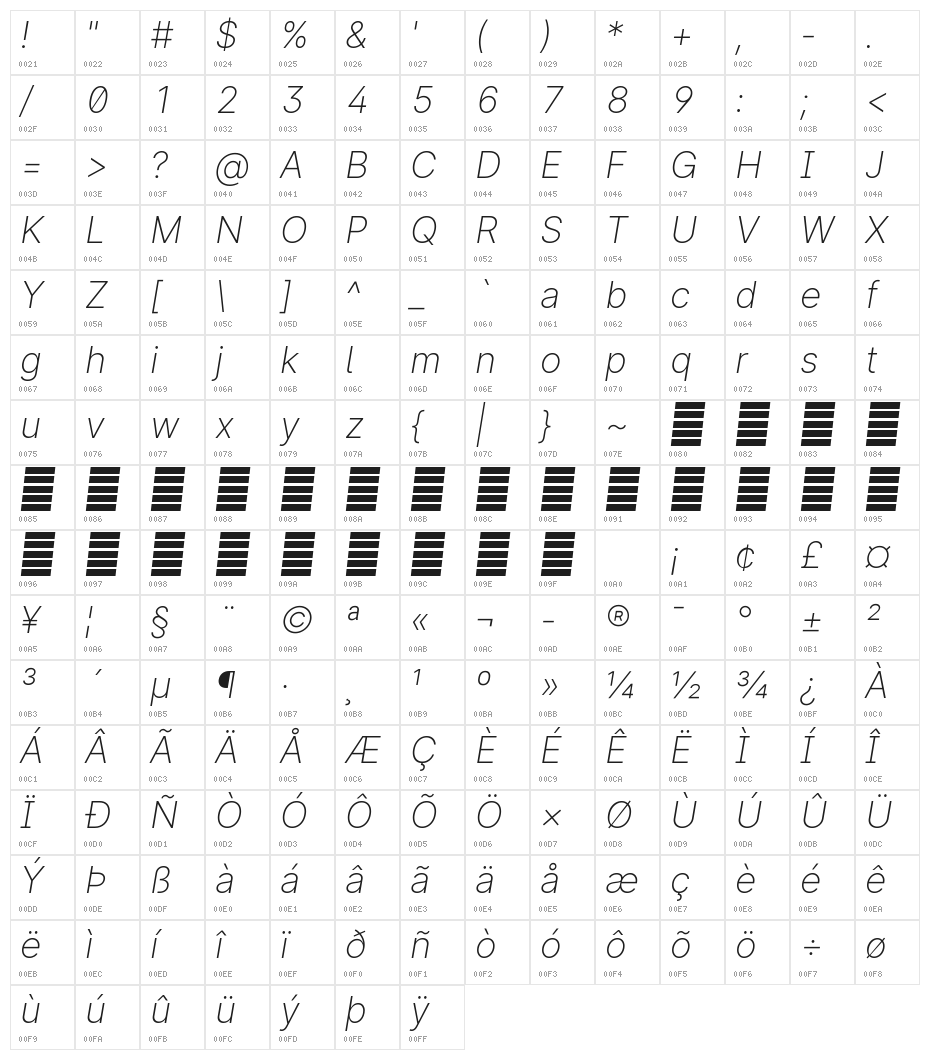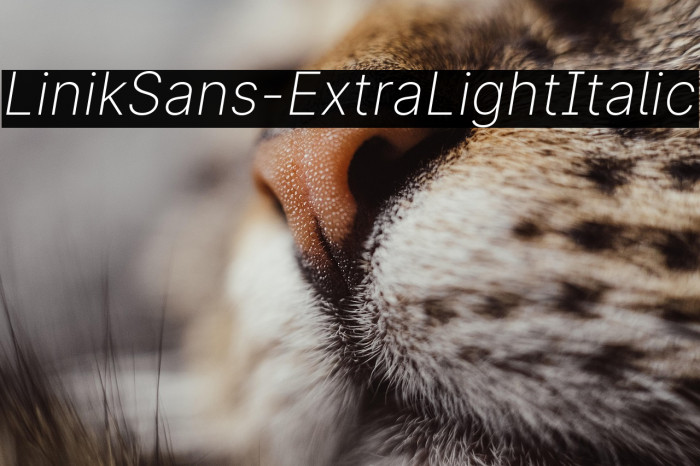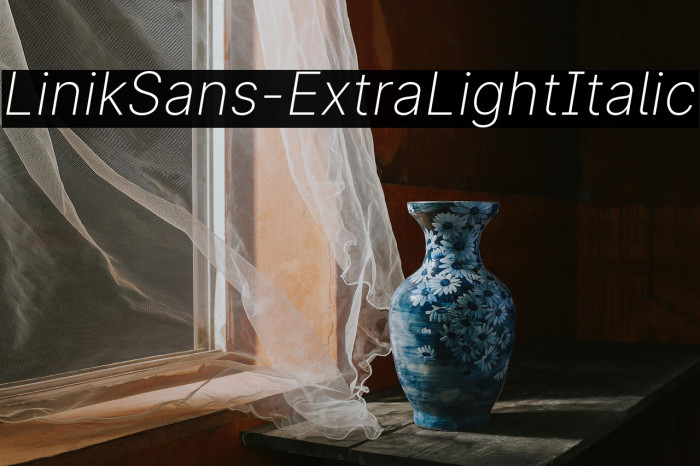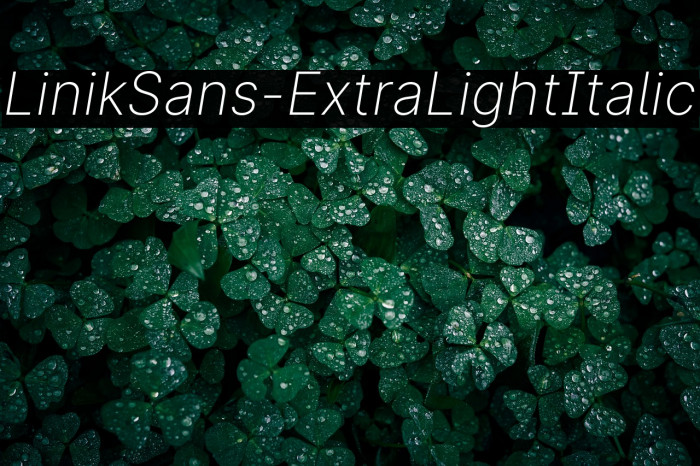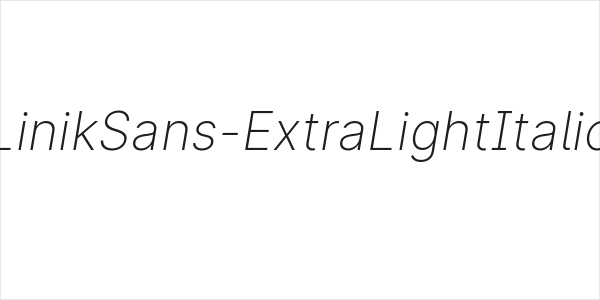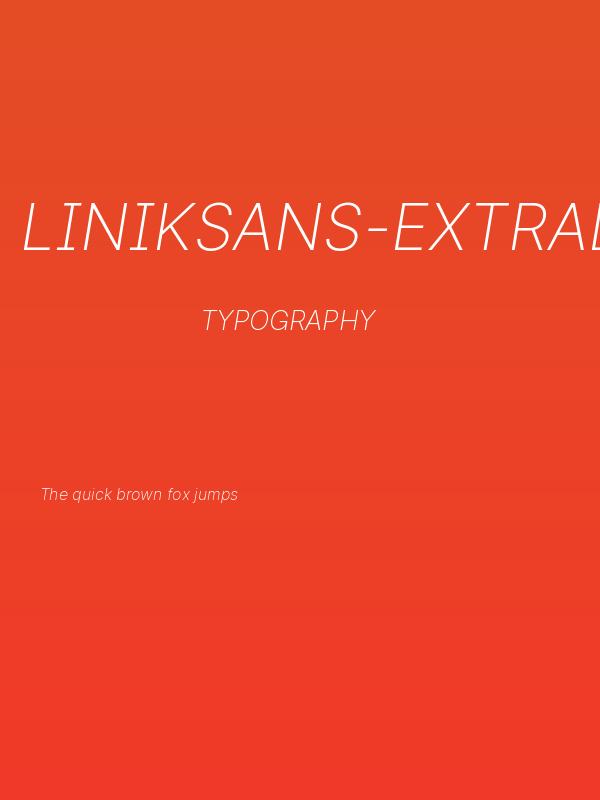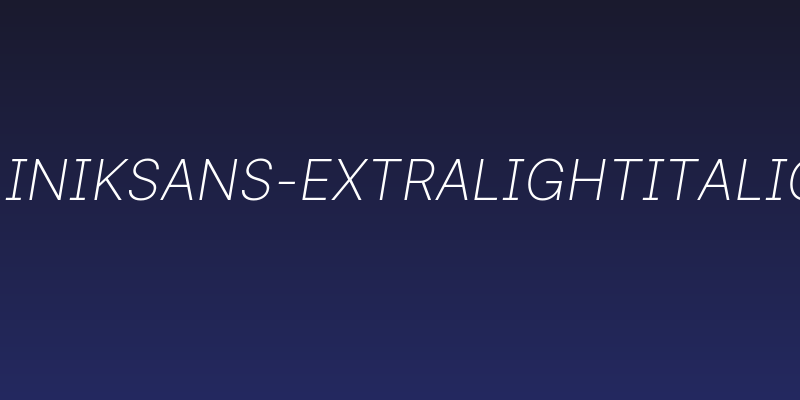
LinikSans-ExtraLightItalic Font
LinikSans-ExtraLightItalic Description
This typeface is characterized by its sleek and modern sans-serif design, featuring an extra-light weight that gives it an airy and elegant appearance. The italic style adds a subtle slant to the characters, enhancing its dynamic and contemporary feel. The letters are crafted with clean lines and minimalistic strokes, ensuring readability while maintaining a sophisticated aesthetic. The numerals and special characters are designed with the same attention to detail, providing a cohesive look across all elements. The overall design is versatile, making it suitable for a wide range of applications.
| Proposed Projects | Ideal for modern branding, editorial design, digital interfaces, and minimalist print materials. |